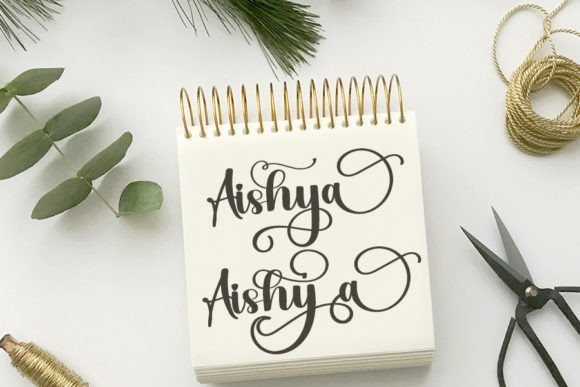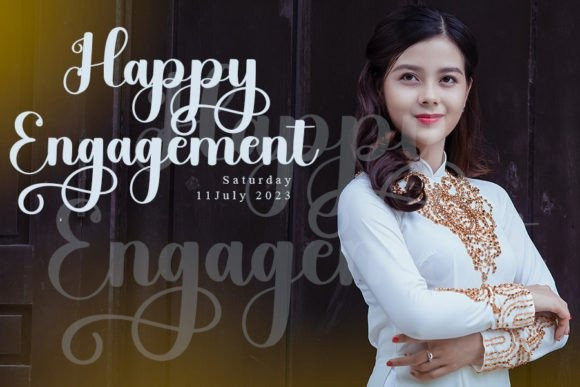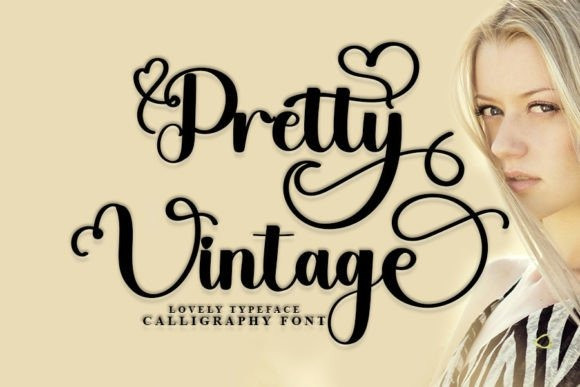
Pretty Vintage Font
Pretty Vintage Font is a beautiful and refined handwritten font. It has a classy, elegant, and modern look that can be used for logos, branding, invitations, stationery, wedding designs, social media posts, and much more!